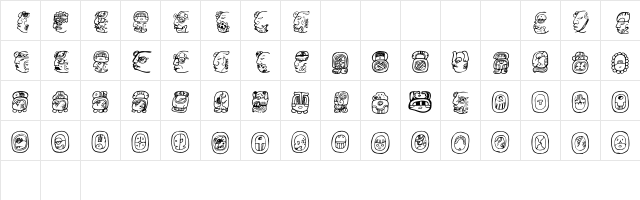
Complete Abaj Bold glyph index. Displaying only characters natively supported by Abaj Bold font.
Abaj is a composed and adaptable typeface that performs quietly and consistently across a wide range of design contexts. Its bold stroke weight gives it real presence on the page.